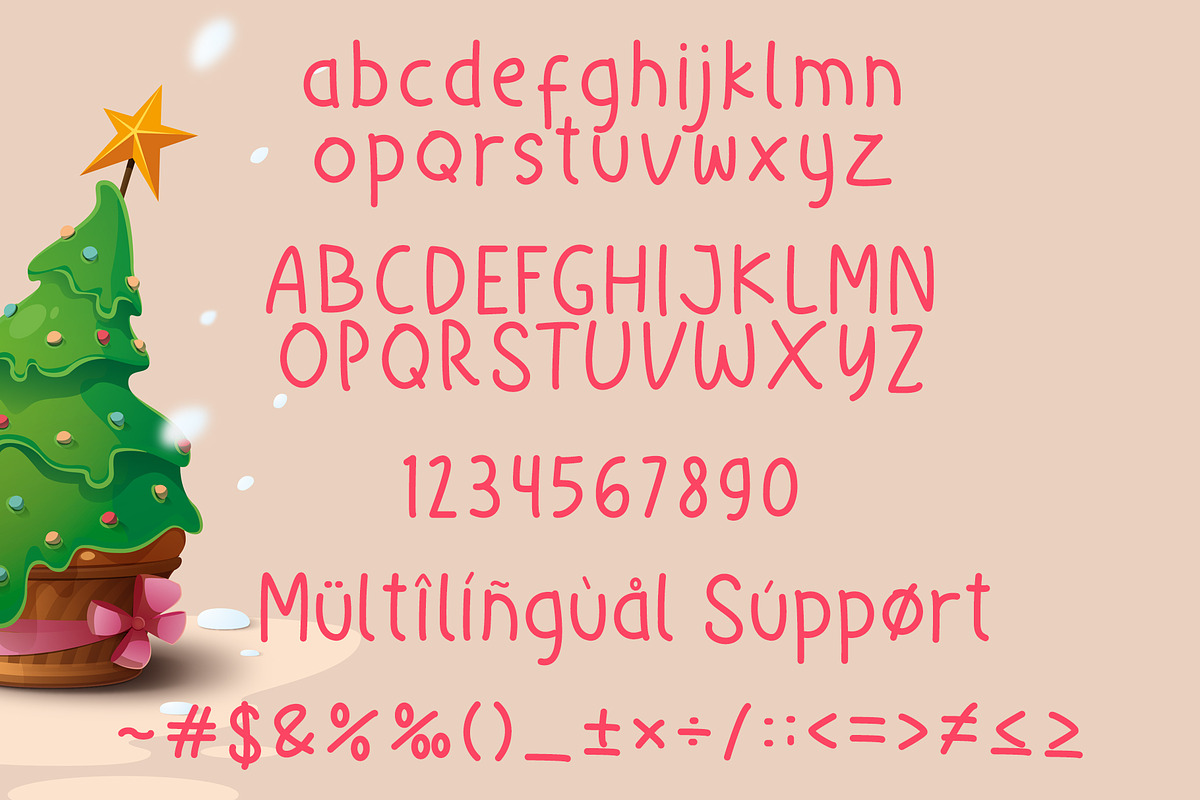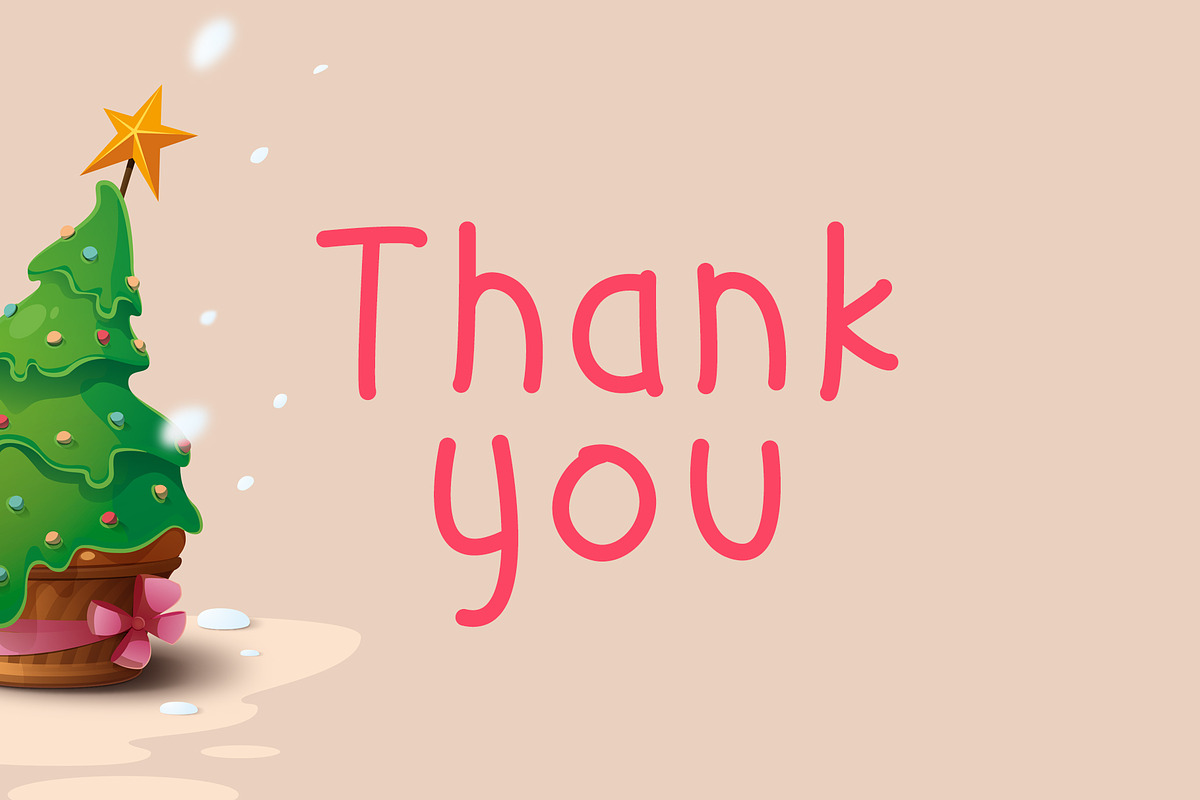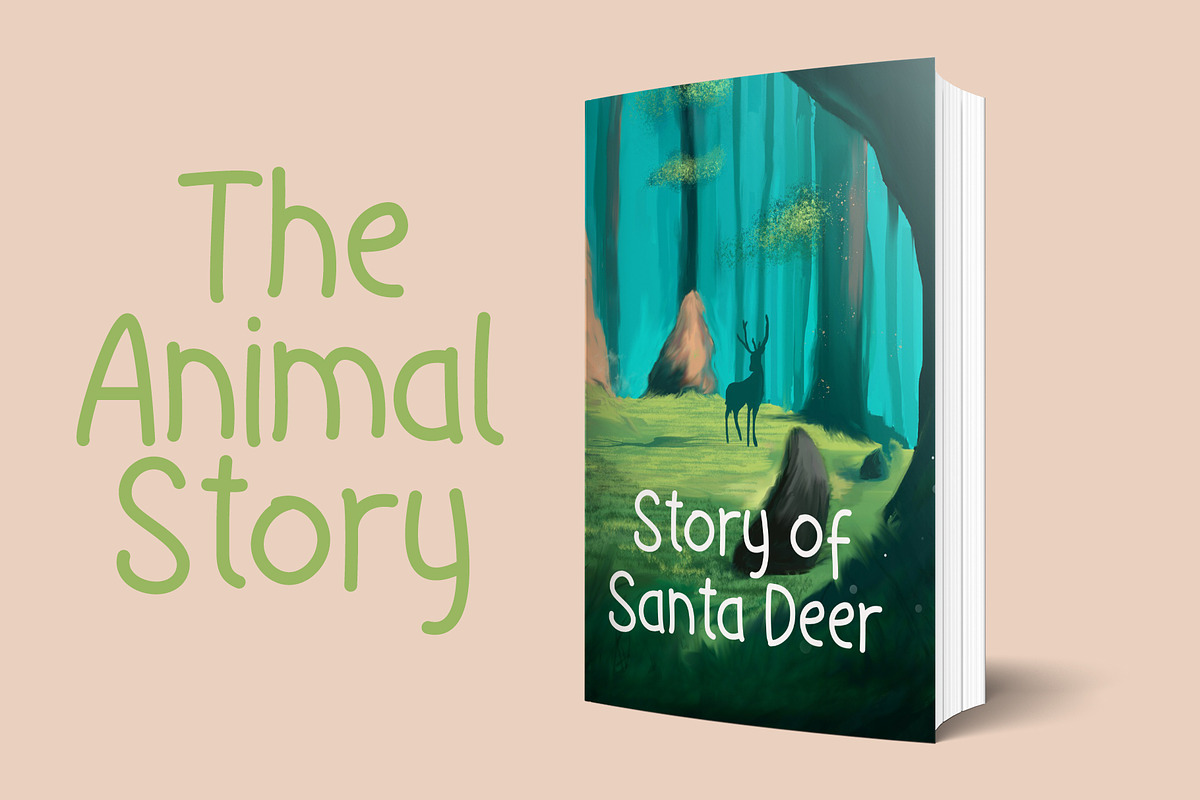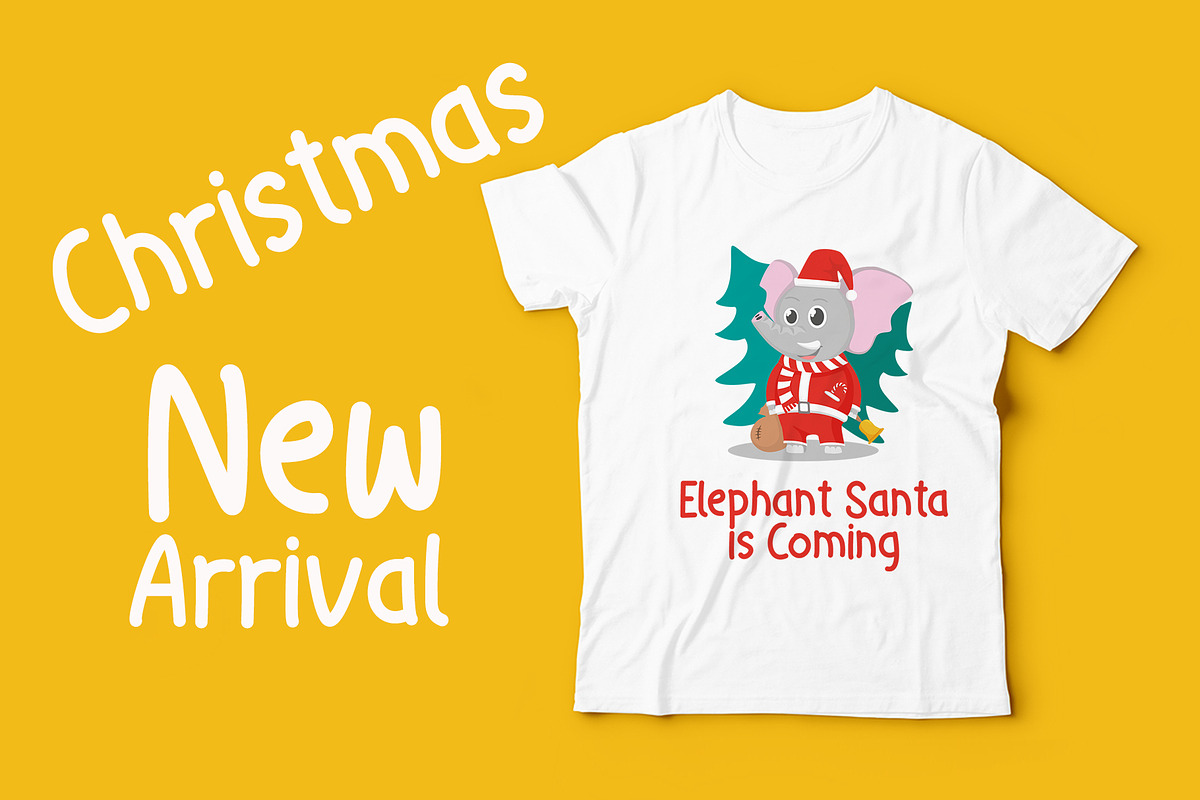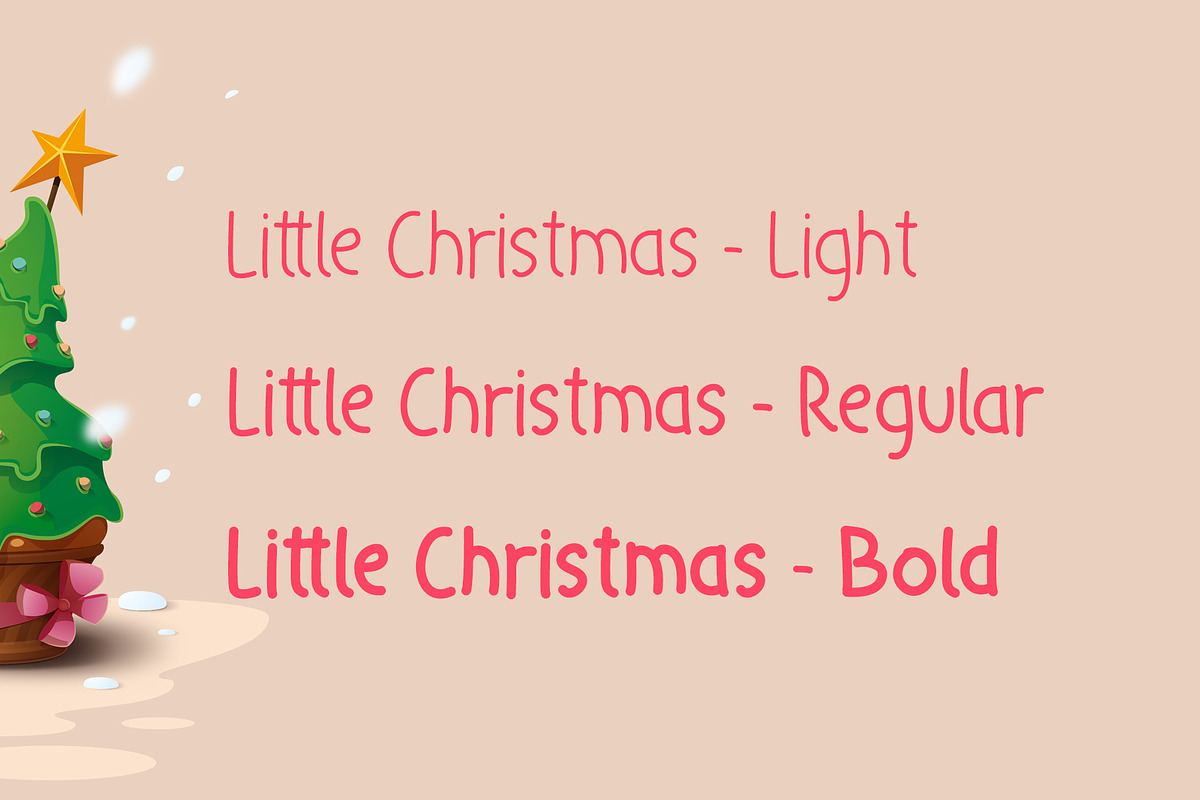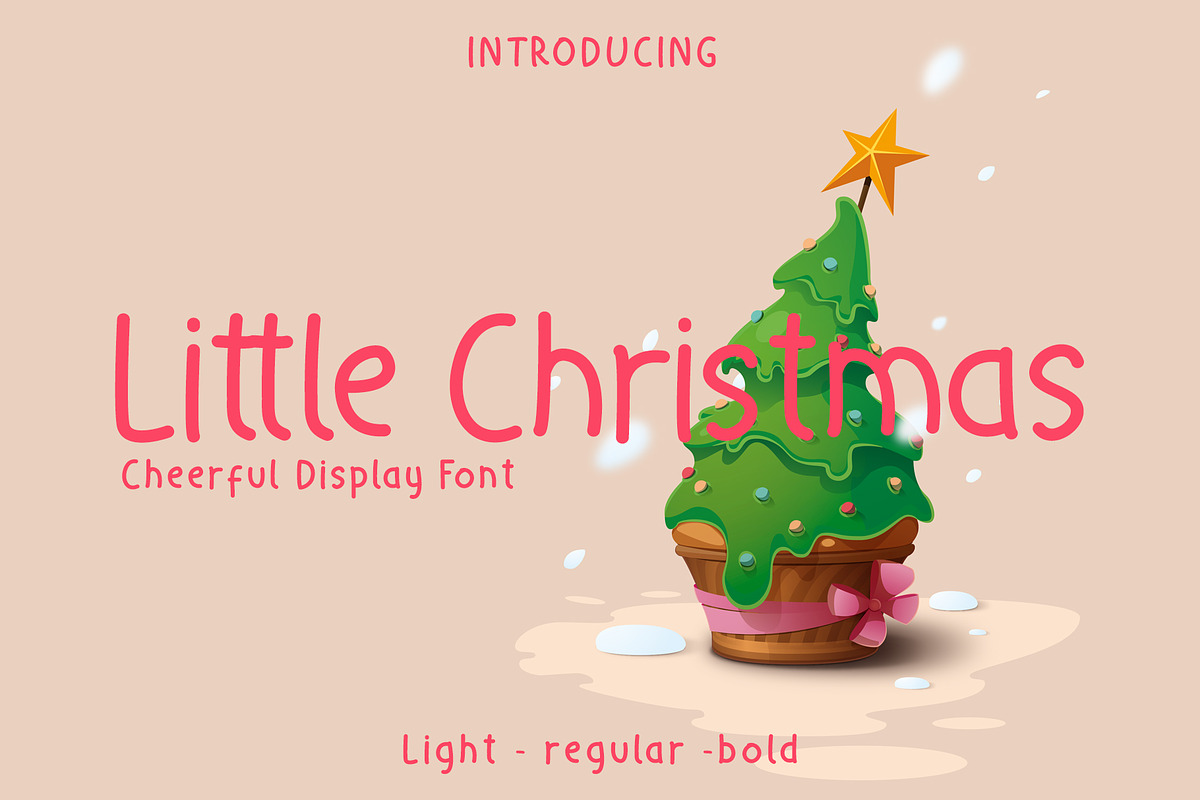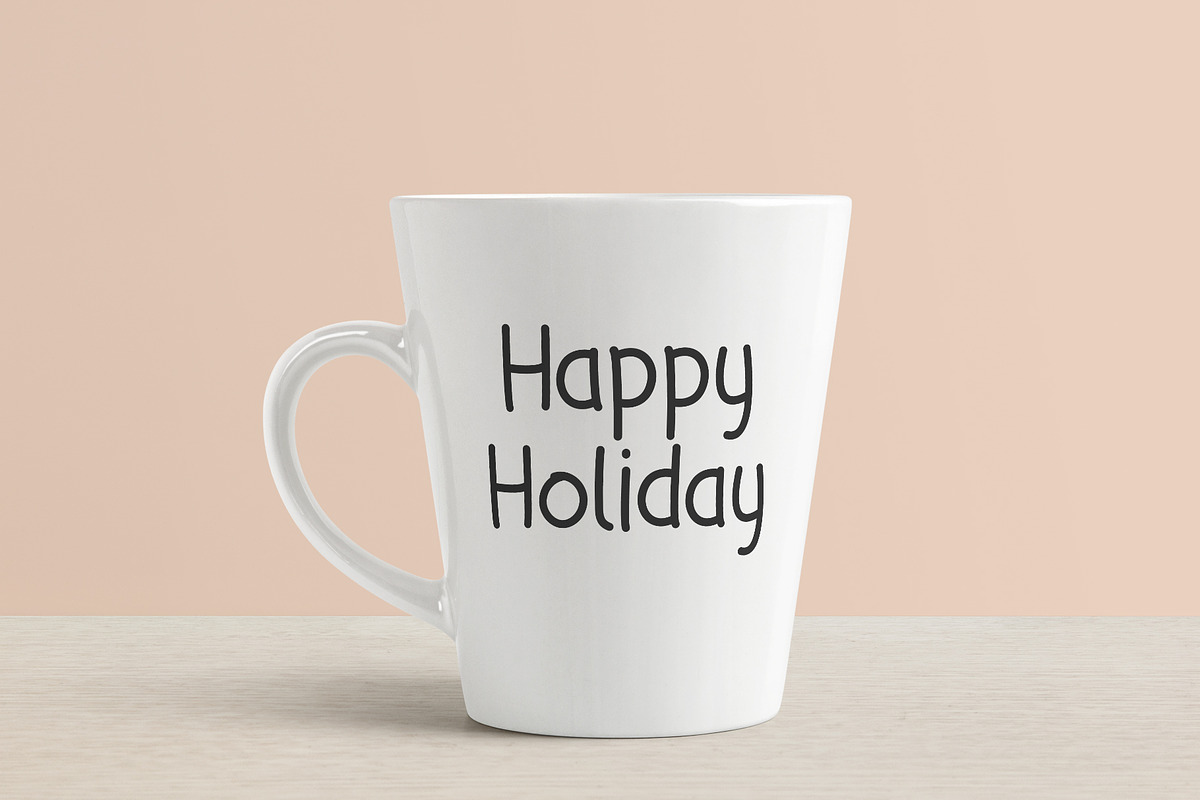
Little Christmas - Cheerful Holiday
Little Christmas is fun display font, perfect theme for your christmas and holiday, it bring happiness to your designs. Little Christmas is awesome for branding projects, logo, wedding designs, social media posts, advertisements, product packaging, product designs, label, photography, watermark, invitation, stationery and any projects that need handwriting taste. Little Christmas includes three version of gorgeous uppercase and lowercase letters, three version numerals, a large range of punctuation, and multilingual support.